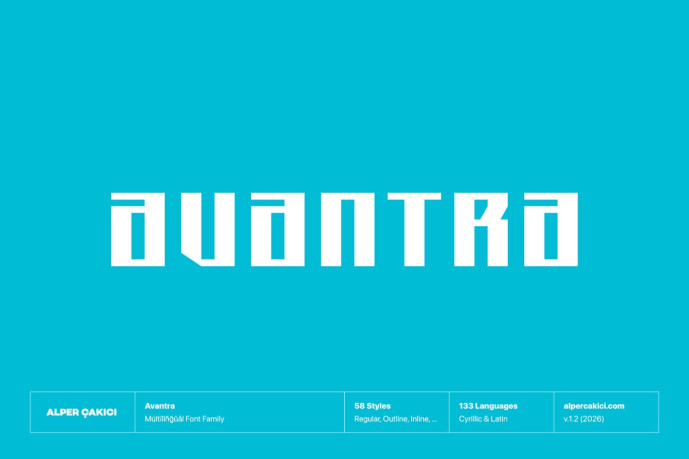
Avantra is a bold, futuristic display typeface built on sharp geometry and modular structure. Designed for versatility, Avantra spans an extensive family of styles— from clean and precise to textured and organic. The core geometric foundation is expanded through Angular, Circular, Rounded, Brush, Pencil, Inline, Outline, Rimmed, Rough, Noise, and Eroded variations, each with matching italics. This wide stylistic range allows designers to move seamlessly between sleek minimalism and experimental grunge within a single cohesive system.
Avantra supports a broad multilingual character set, covering 130+ languages, Latin and Cyrillic, making it suitable for global projects without sacrificing its unique identity.